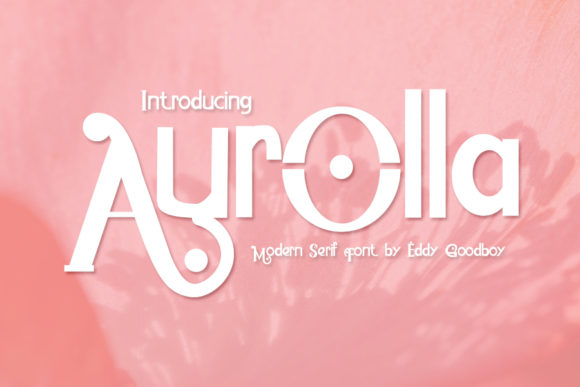
Behold, the Aurolla Font, a celestial wonder that will transform your creative projects into a realm of enchantment. Its enchanting aura will cast a spellbinding charm over your designs, inviting viewers to embark on an extraordinary journey through your artistry.
Picture this: your Christmas designs adorned with the radiant Aurolla Font, illuminating the festive season with its ethereal glow. Each letter will sparkle like a star in the winter sky, captivating your audience with its enchanting presence.
But Aurolla's magic extends beyond the realm of Christmas. Its versatility knows no bounds, making it a font for all seasons. Its elegant curves and distinctive characters lend a timeless appeal to wedding invitations, greeting cards, and any creation that yearns for a touch of elegance.
The Aurolla Font is a visual symphony, meticulously crafted by the renowned font artist, Eddygoodboy. His passion for typography shines through in every stroke and curve, ensuring that Aurolla emerges as a font of unmatched quality and character.
Indulge in the Aurolla experience and unlock a world of creative possibilities. Let your imagination soar as you witness your designs transformed into masterpieces, capturing hearts and sparking conversations wherever they go. Embrace the magic of Aurolla and elevate your creativity to new heights.